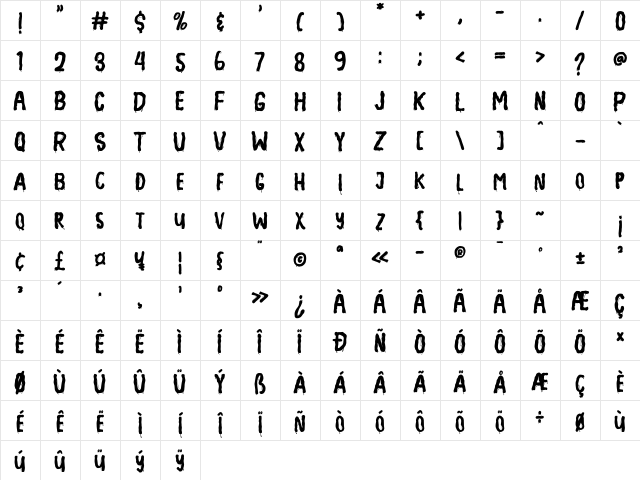
NCL Halloween Danger Demo Regular
Designer: Enxyclo Studio
Design Context for NCL Halloween Danger Demo
NCL Halloween Danger Demo is a composed and adaptable typeface that performs quietly and consistently across a wide range of design contexts.